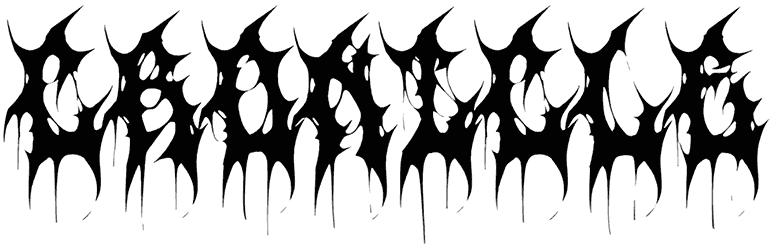
Cronicle Font
The sharp and murderous letters of Cronicle are accompanied by so many harsh elements that you may have a little trouble telling them apart at first. But don’t worry. You’ll get the hang of it soon enough.
It takes guts to complain about this dripping font missing the numeric collection and the lowercase set! But at least you know it’ll be a death metal font perfect for your music covers, horror game logos, escape room website headers, or anything gothic.